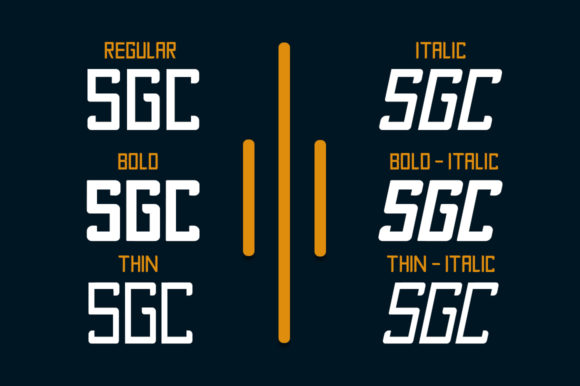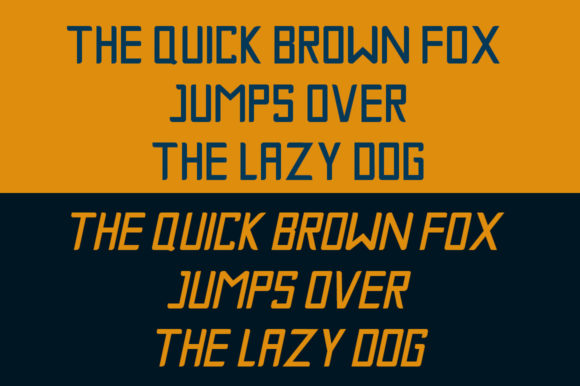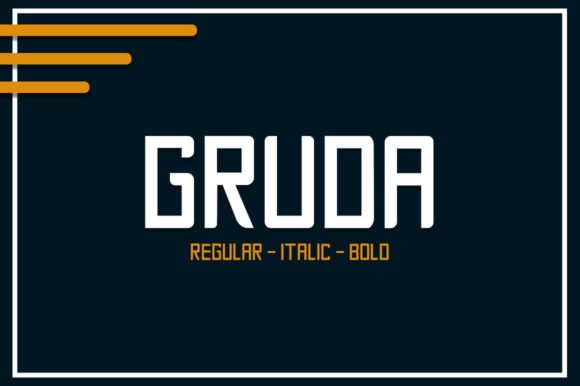
Introduction to Gruda Font
Gruda is a minimal, yet bold and elegant sans serif font.
Suitable to a wide variety of designs due to its neat and simple style, Gruda has the potential to become your favorite go-to font, no matter the occasion .